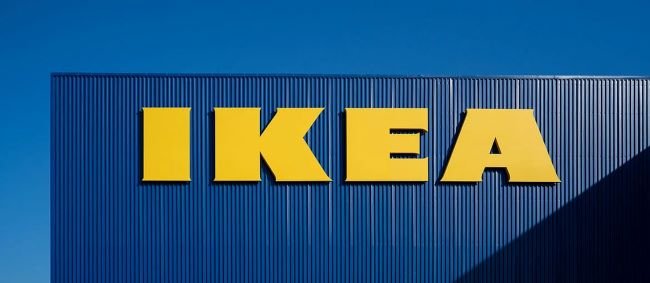
IKEA font is a masterclass in how typography can carry an entire brand philosophy — democratic, functional, and designed to be understood by anyone, anywhere, without a manual. The iconic logotype is rooted in Futura, Paul Renner’s 1927 geometric sans-serif that became one of the defining typefaces of 20th-century modernism, its clean circular letterforms perfectly mirroring IKEA’s belief that good design should be available to everyone, not just those who can afford it. The freely available Fat Sans Round channels a comparable rounded geometric warmth — approachable and bold without sacrificing the clean legibility the original demands.